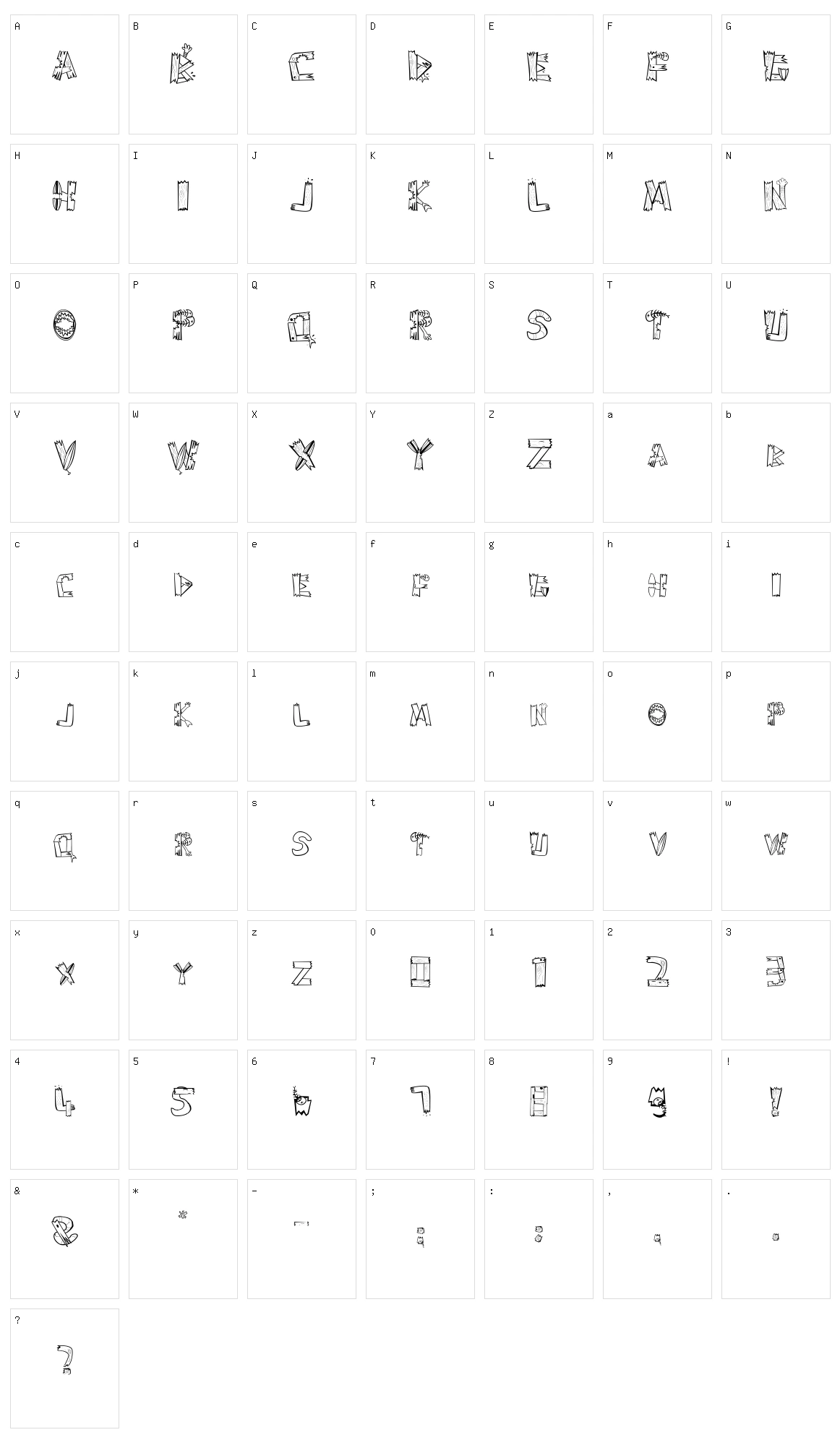
The free font SharKbait is carefully designed by Krystie, showcasing a thoughtful balance of creativity and usability and falls under the Cartoon font style. When you download the ZIP file, it contains only 103.28 KB of font files, making it lightweight and quick to download. Please review the license details below to understand permitted usage and distribution rights. If license information is not available, we recommend using this font for personal projects only or contacting the author directly for commercial usage permissions.